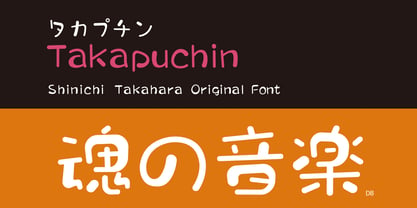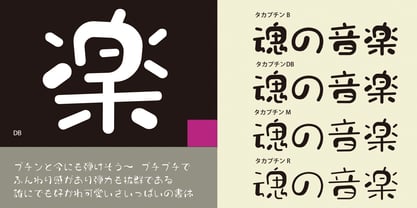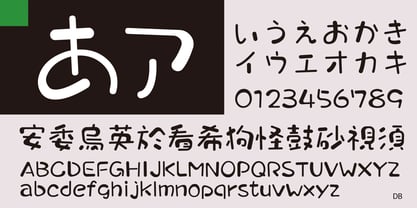
Takapuchin
by Taka Design Production
The Takapuchin Font Family was designed by and published by Taka Design Production. Takapuchin contains 4 styles and family package options. More about this family
It is a fun typeface that looks as if it is about to pop. It has a petit, fluffy feel and a cuteness that anyone would love.